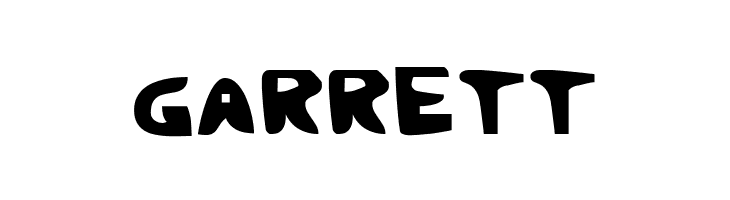
Sydney Lover Demo Regular Font
- Font: Sydney Lover Demo Regular
- No. of Characters:: 68
A playful, bold, and hand-drawn font with a whimsical style.